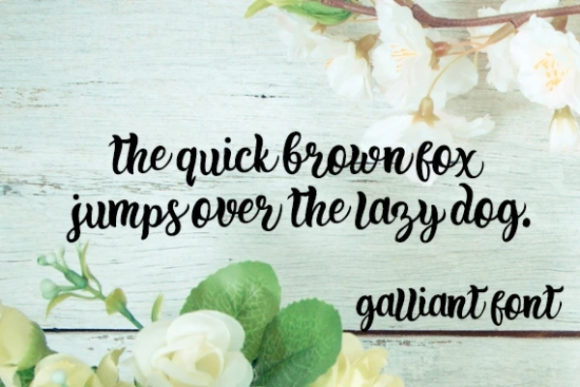
Introduction to Galliant Font
As designers, we’ve all been there – staring at a blank canvas, trying to bring our creative ideas to life. And sometimes, it’s just a matter of finding the right tool to spark our imagination. For me, that tool was the Galliant Font. Its cute and bouncy handwritten style instantly captured my attention, and I knew I had to learn more about this incredible font.
With its gorgeous swashes and ligatures, Galliant Font is more than just a pretty face – it’s a design resource that can elevate any project to new heights. Whether you’re working on a high-quality design for a client or creating a DIY project for fun, Galliant Font is the perfect companion to help you achieve your vision.
Key Features of Galliant Font
- Unique, bold, and modern font style, ideal for adding a touch of sophistication to any design.
- Perfect for use in logos, headings, titles, and body text in creative projects, such as magazines, brochures, and websites.
Honest Review: Galliant Font
I recently came across the Galliant Font, a free download that caught my attention with its sleek, modern design. As a designer, I’m always on the lookout for high-quality design resources to elevate my creative projects.
The Galliant Font does not disappoint. Its clean lines, simple shapes, and versatile style make it perfect for a wide range of applications, from logos and branding to digital displays and print materials.
Here are some of the things that work well with the Galliant Font:
- ✨ Versatile style: suitable for various design projects
- ✨ Clean and modern design: adds a touch of sophistication to any creative project
- ⚠️ Limited font weights: only a few weights are available, which may limit its use in certain situations
- ⚠️ Not suitable for small text: due to its modern design, it may not be the best choice for small text or intricate details
Overall, I’m impressed with the Galliant Font. Its high quality and modern design make it a valuable addition to any designer’s toolkit. While it may have some limitations, it’s a great option for designers looking for a free, versatile font.
Tips for Getting the Most Out of the Galliant Font
For optimal results, use the Galliant Font on a high-resolution image or design. Experiment with different font sizes and colors to create a visually appealing design. You can also use the font in combination with other design elements to create a unique and eye-catching look.
The Galliant Font is perfect for a variety of creative projects, including business cards, brochures, and presentations. Its high-quality design and transparent background make it ideal for creating custom graphics and designs. You can also use the font to add a touch of professionalism to your documents and presentations.